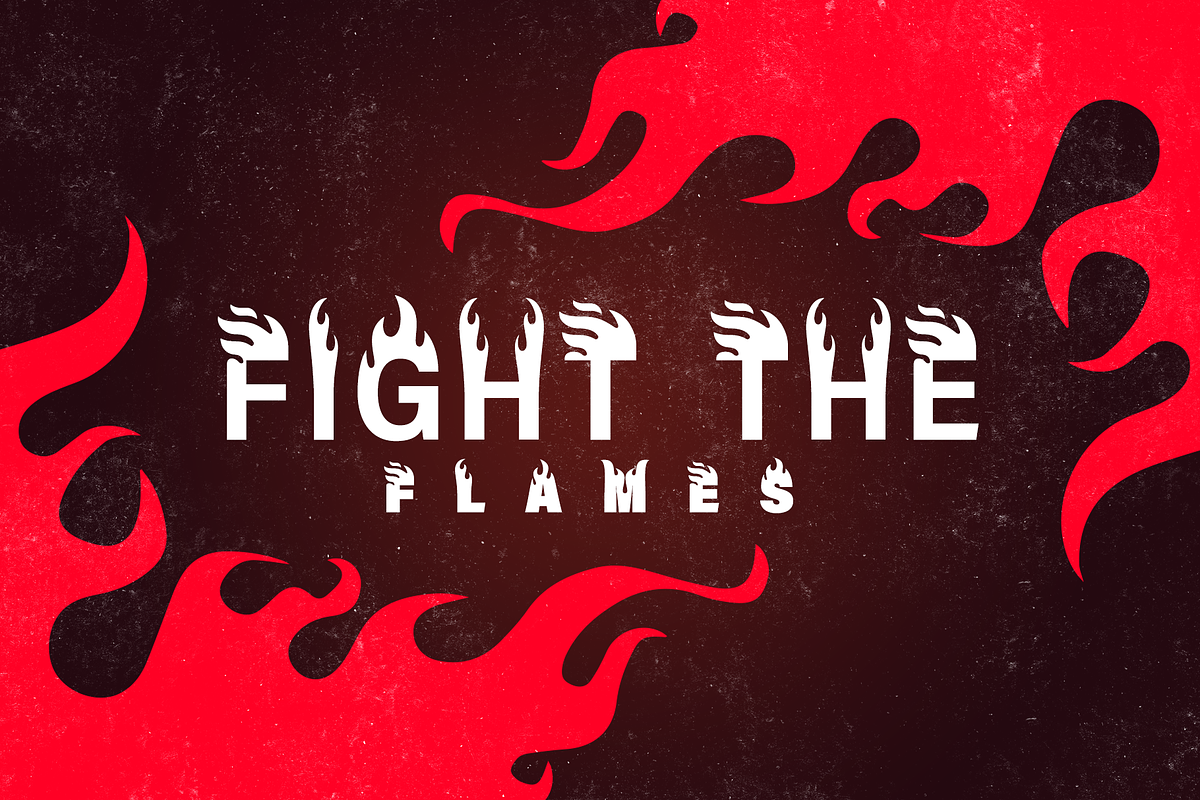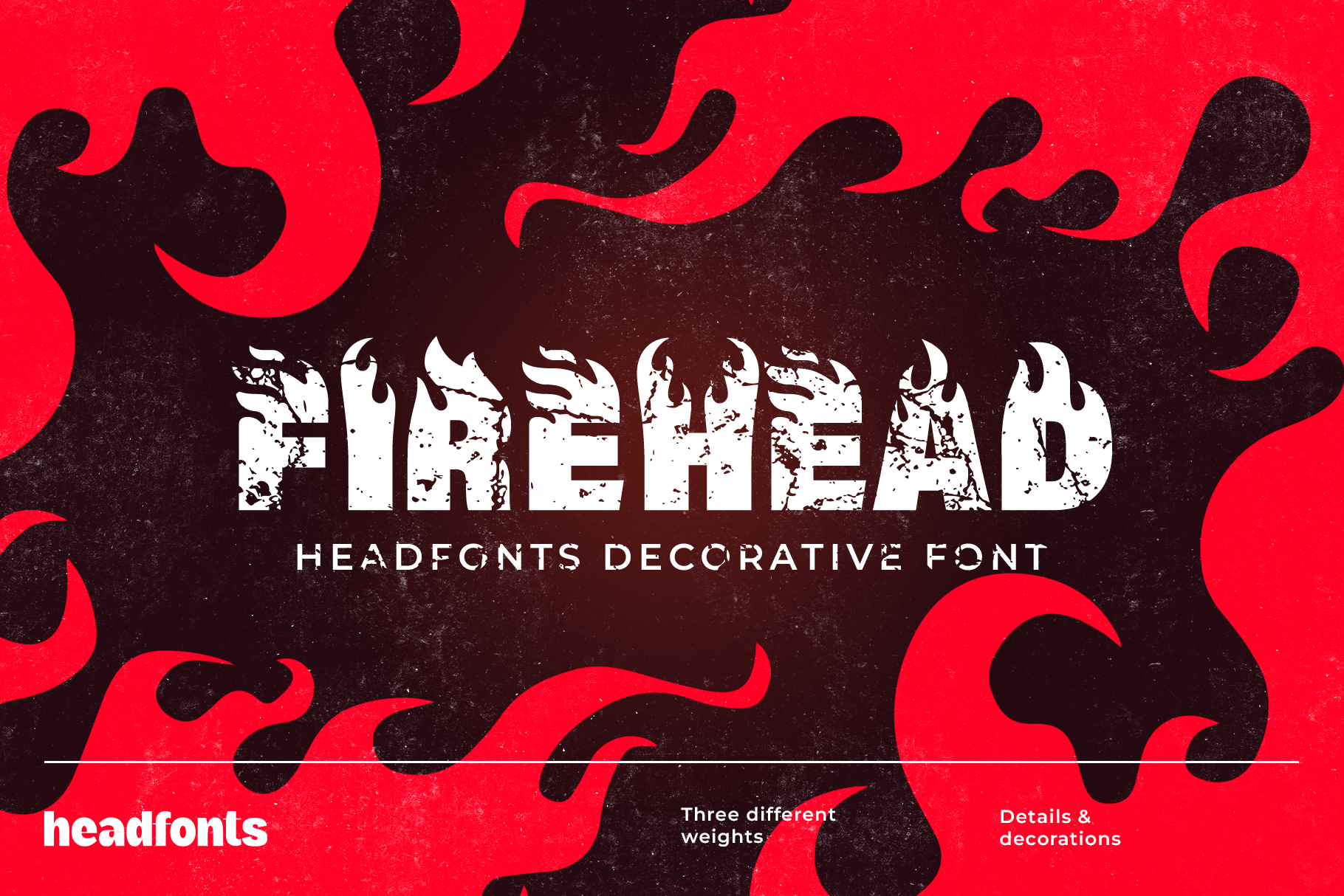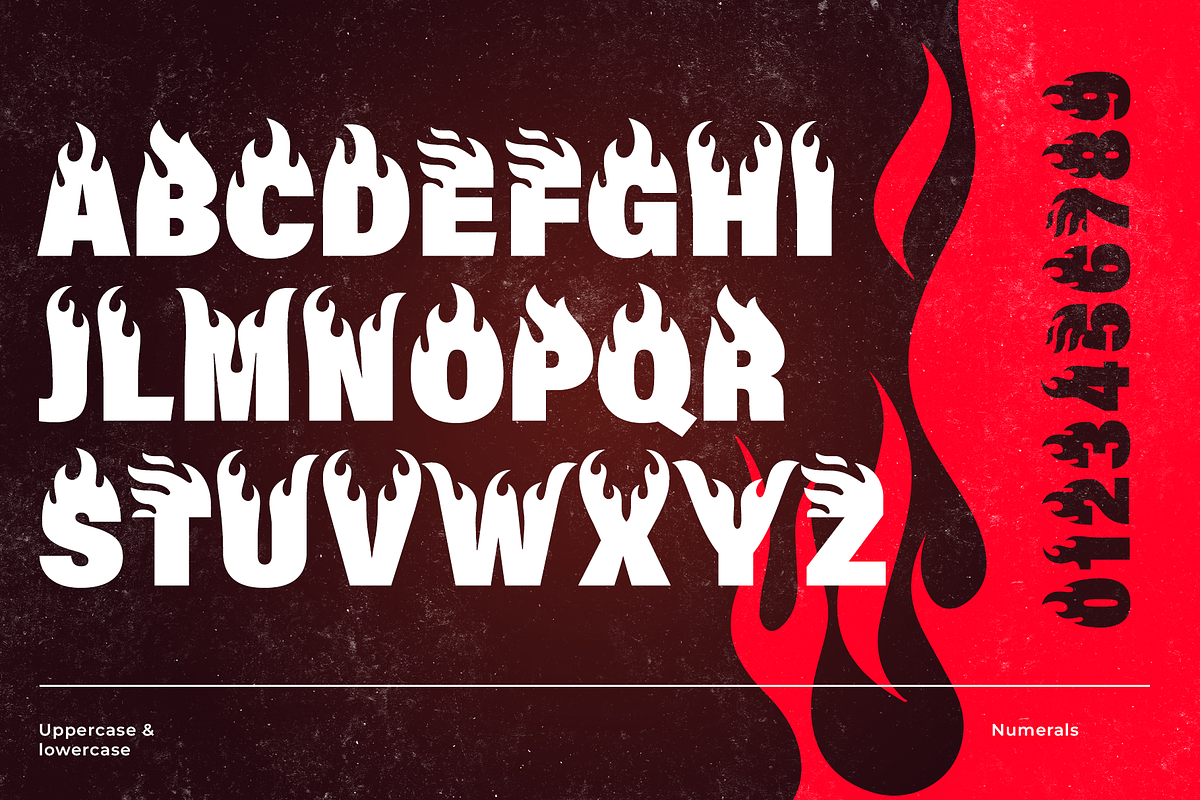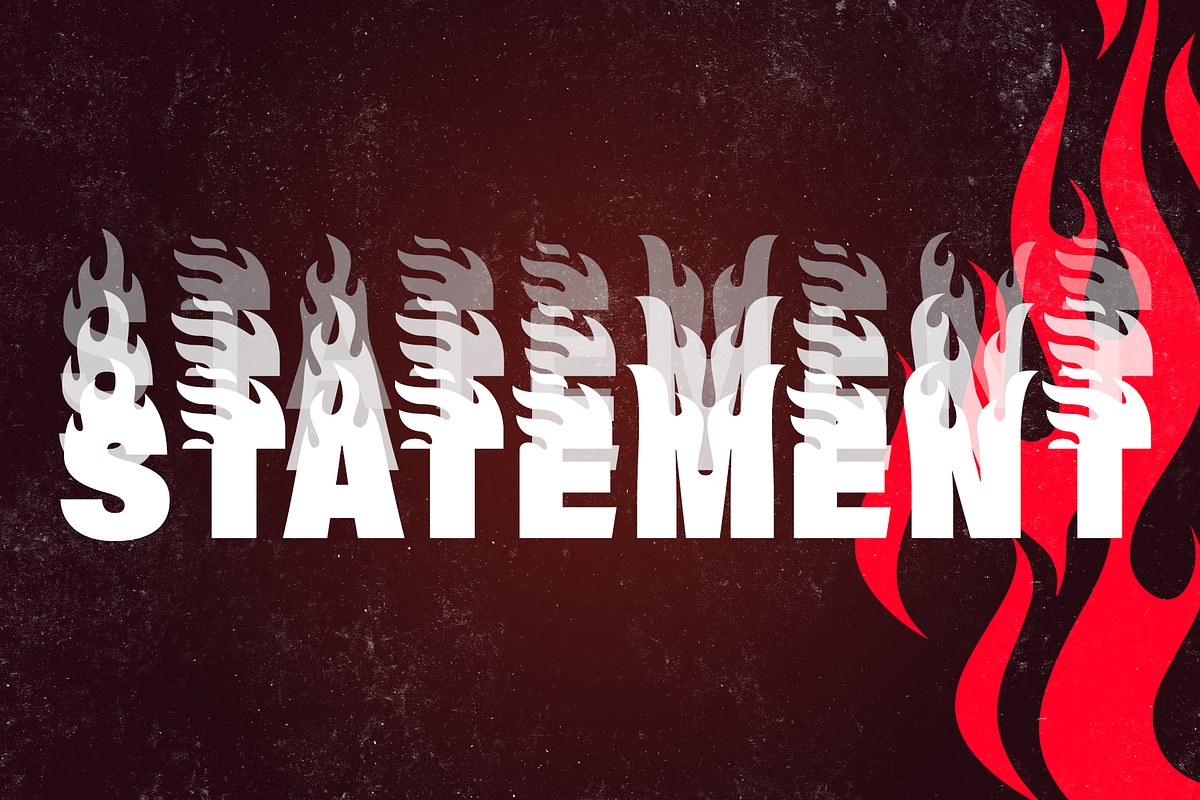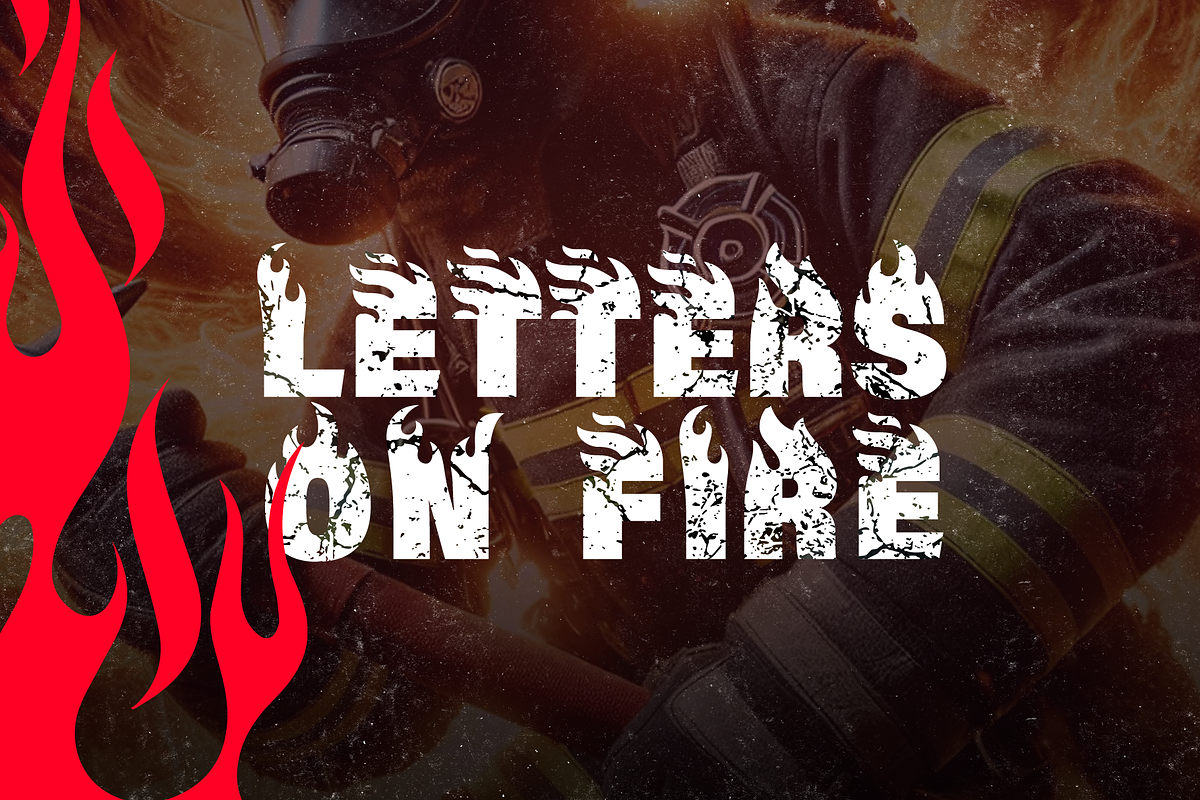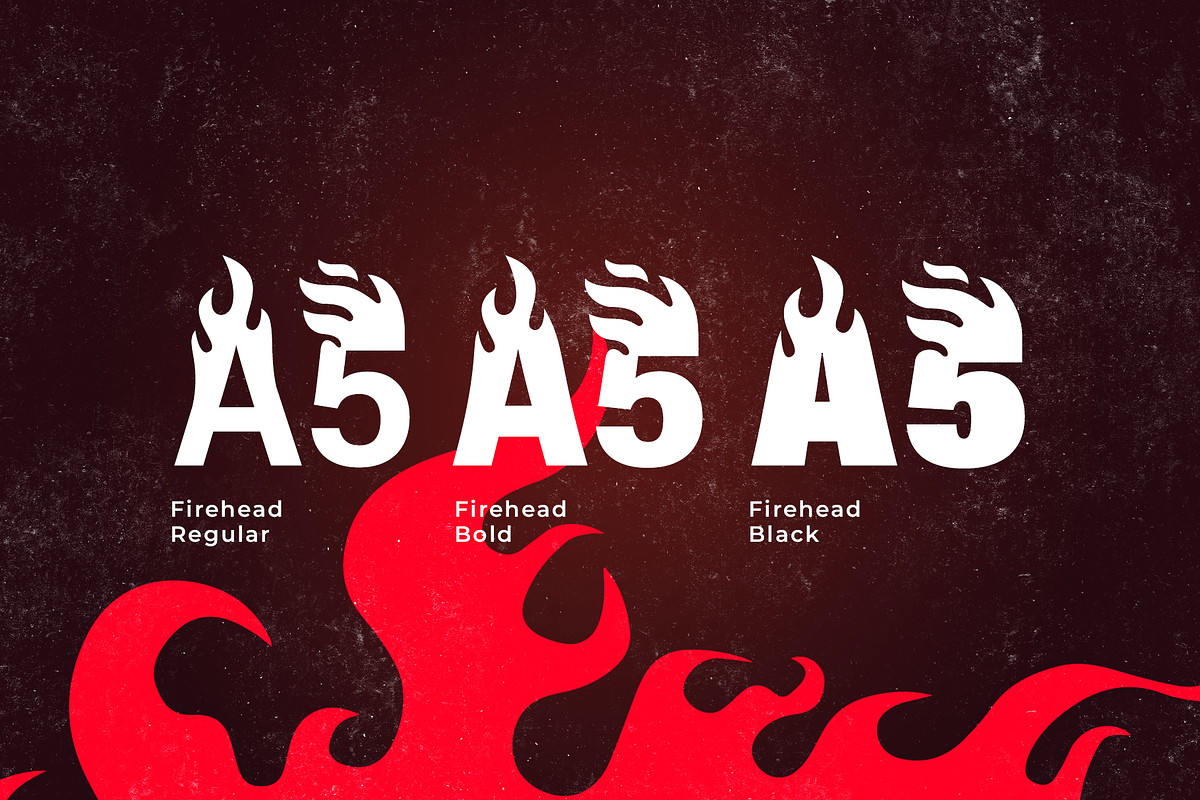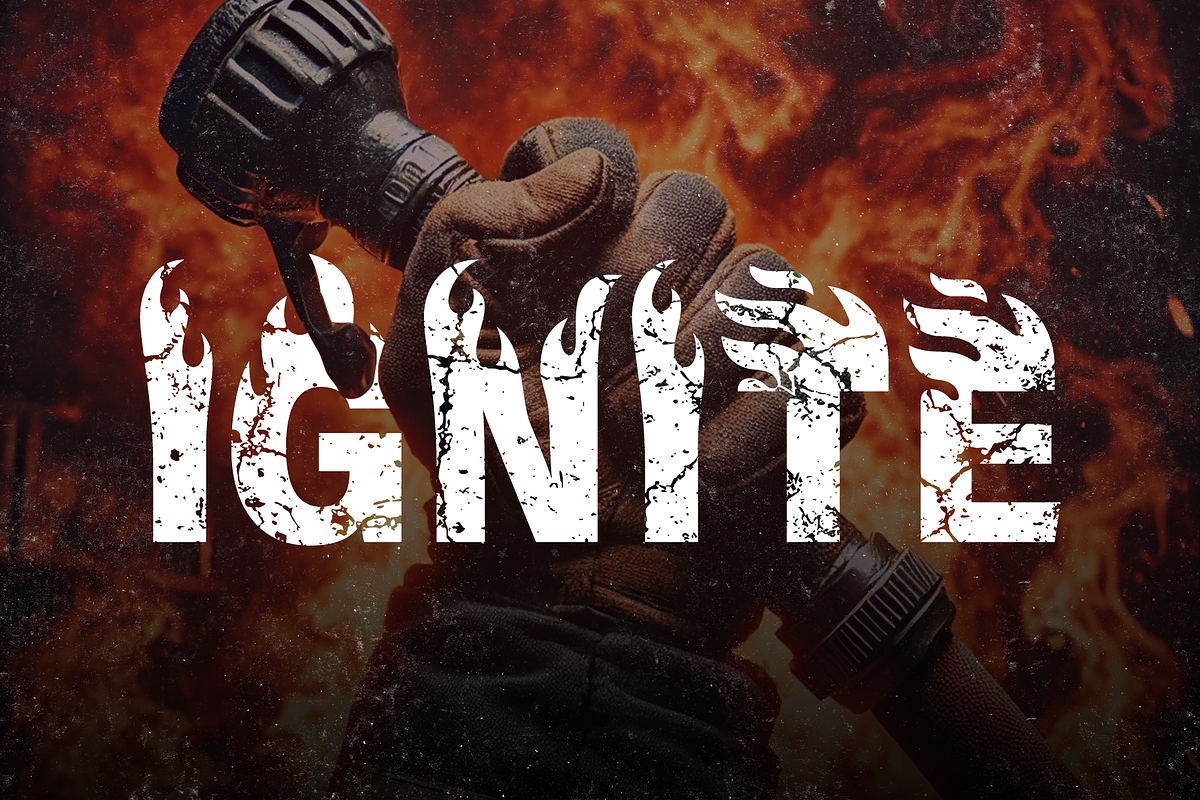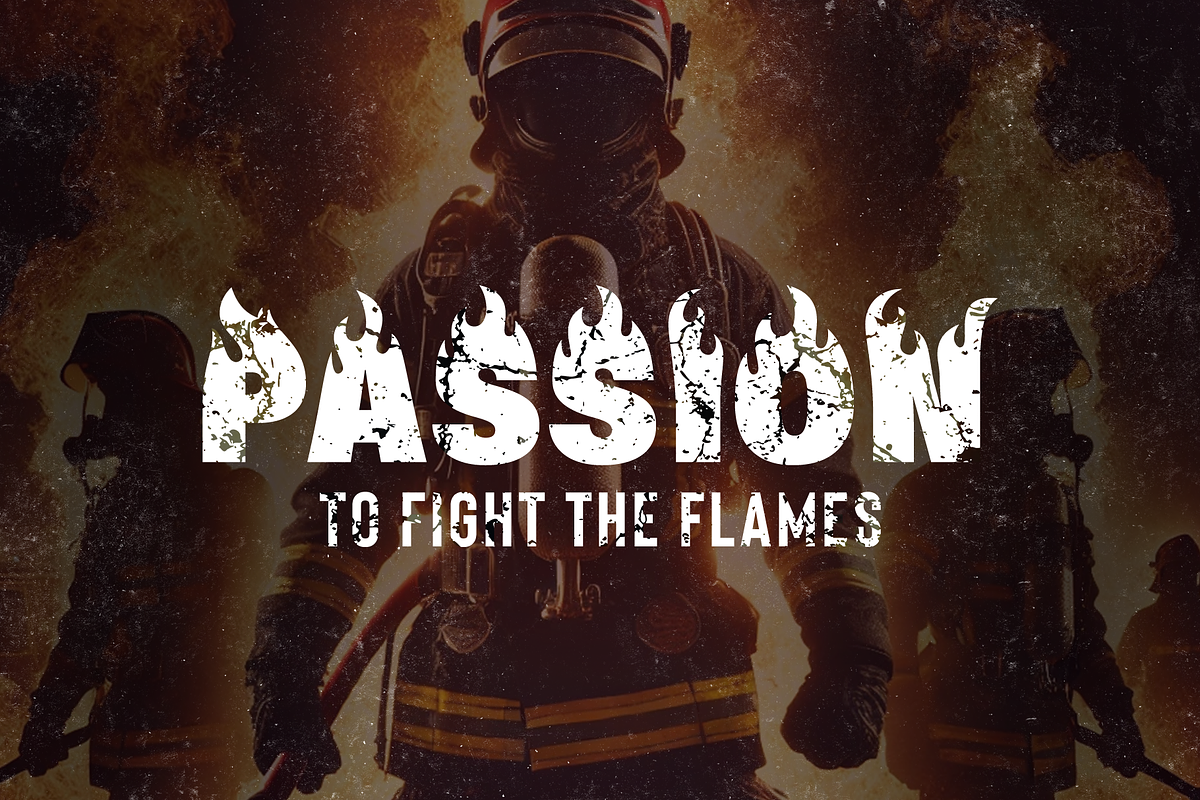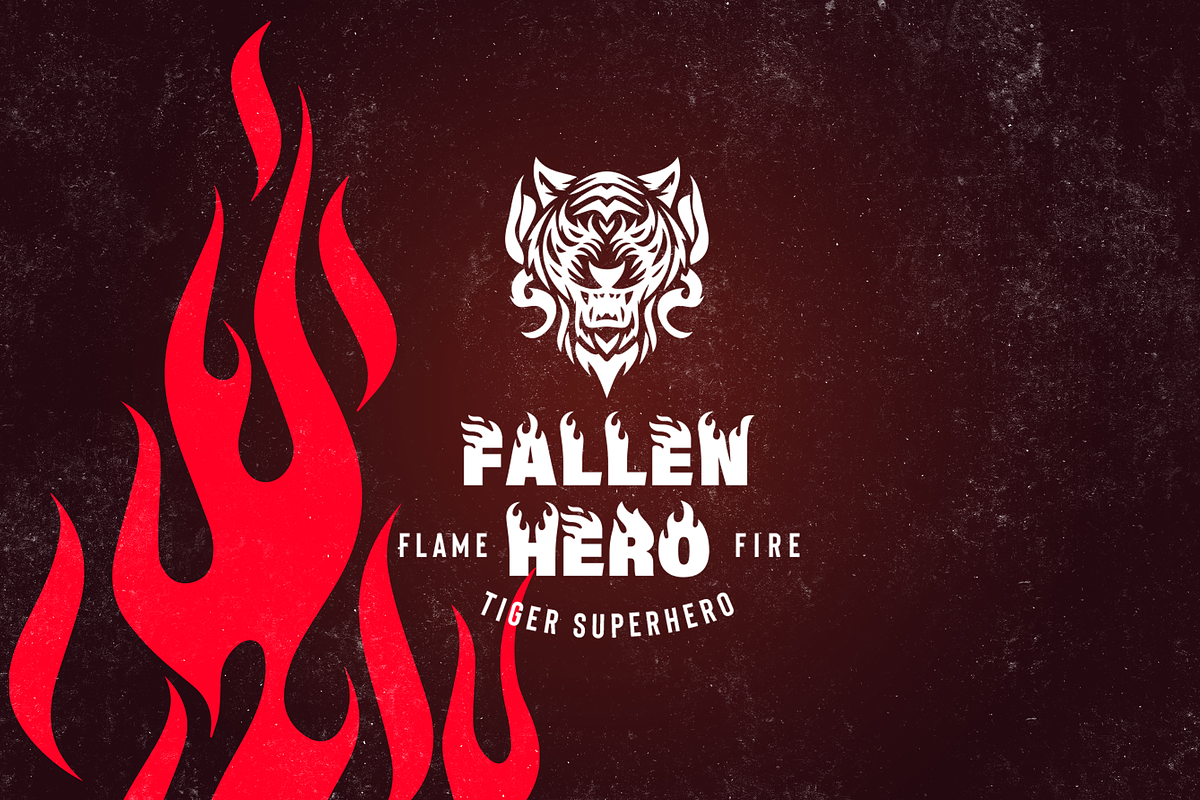
Firehead Font – The Ultimate Flame F
Introducing Firehead, a unique sans-serif font designed to set your designs on fire. Featuring regular, bold, and black weights, each uppercase letter of this decorative typeface is crowned with flames, perfect for adding a dramatic flair to titles, logos, Halloween posters, and any graphic that needs a fiery touch. Firehead is your go-to font for creating bold, eye-catching visuals. Light up your next project with the burning intensity of Firehead!